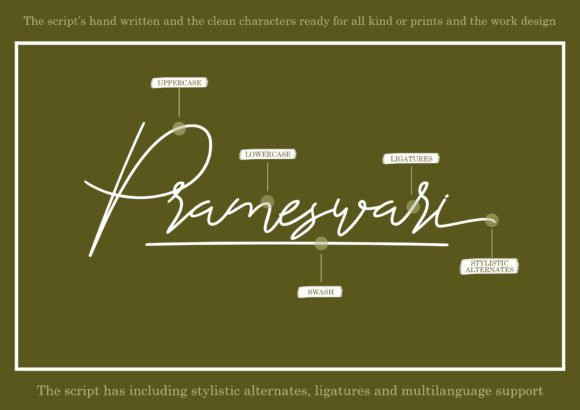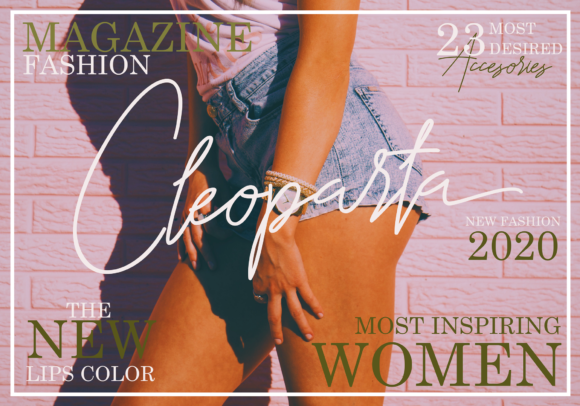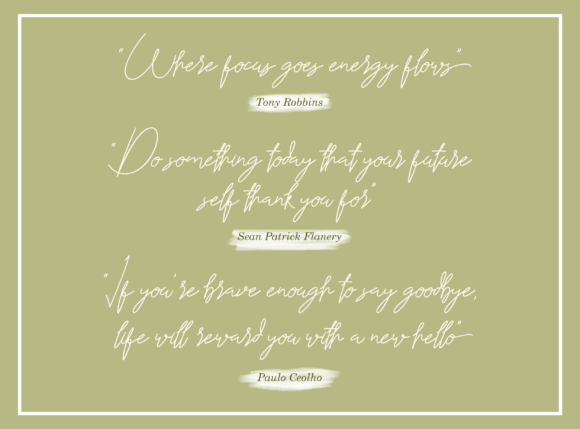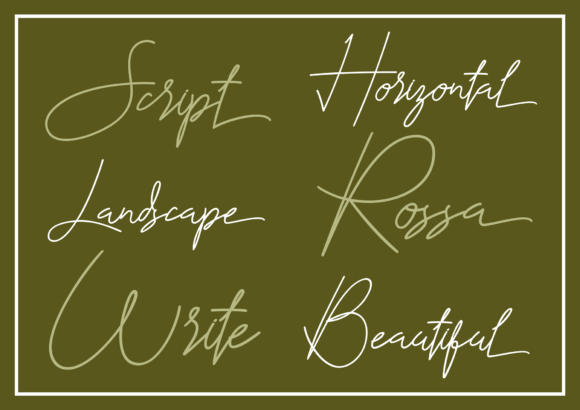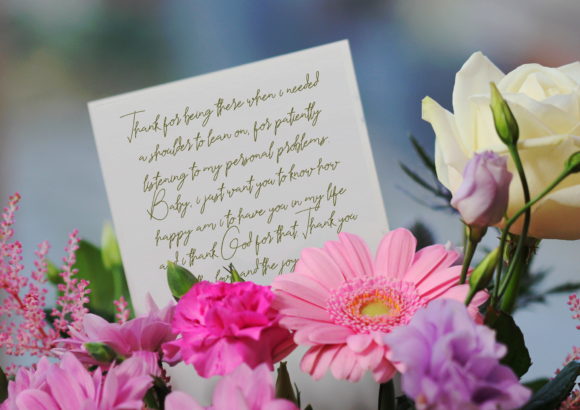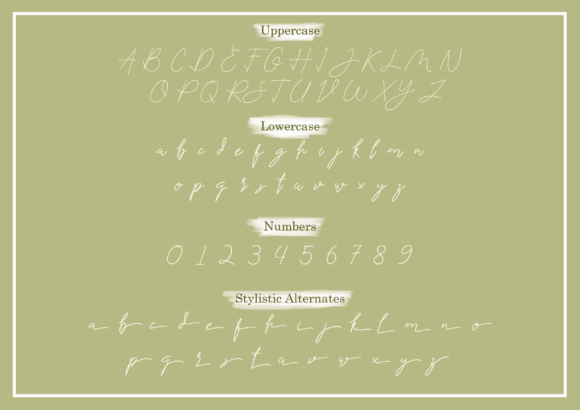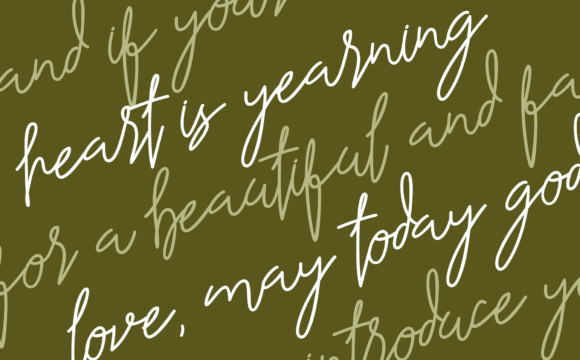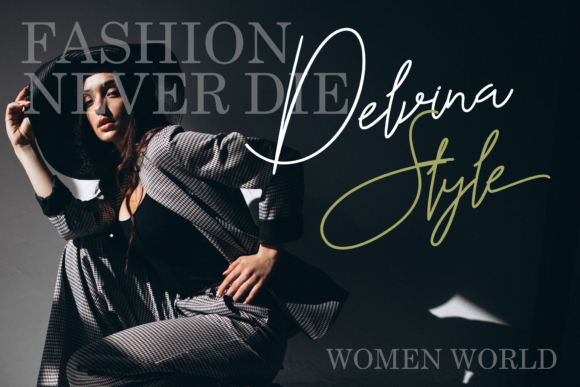
Sweghand Font
Sweghand feels equally charming and elegant. This stunning handwritten font is a stylish homage to classic calligraphy. It features a varying baseline, smooth lines, gorgeous glyphs and stunning alternates.